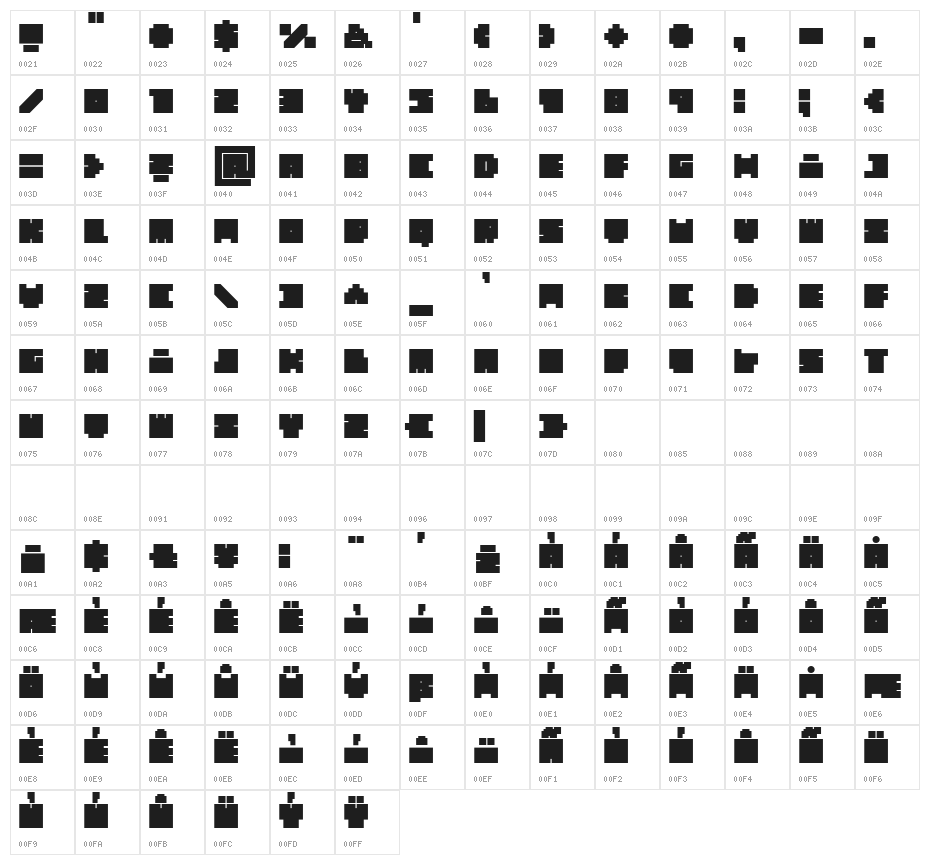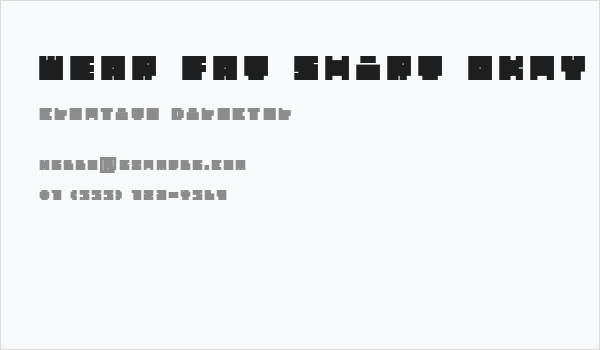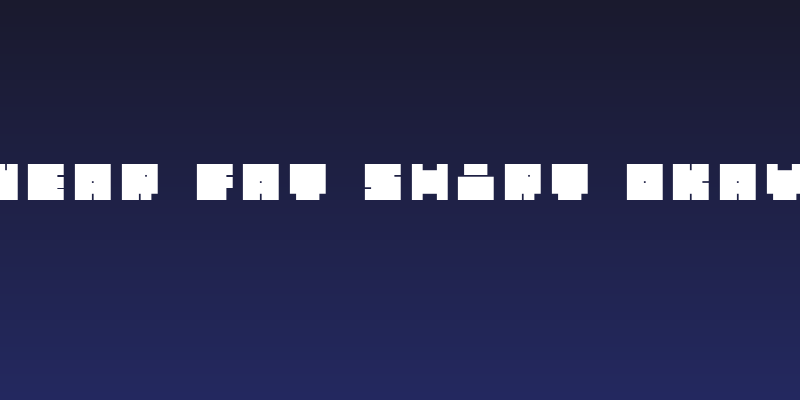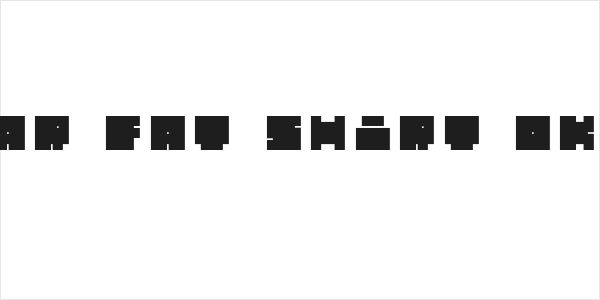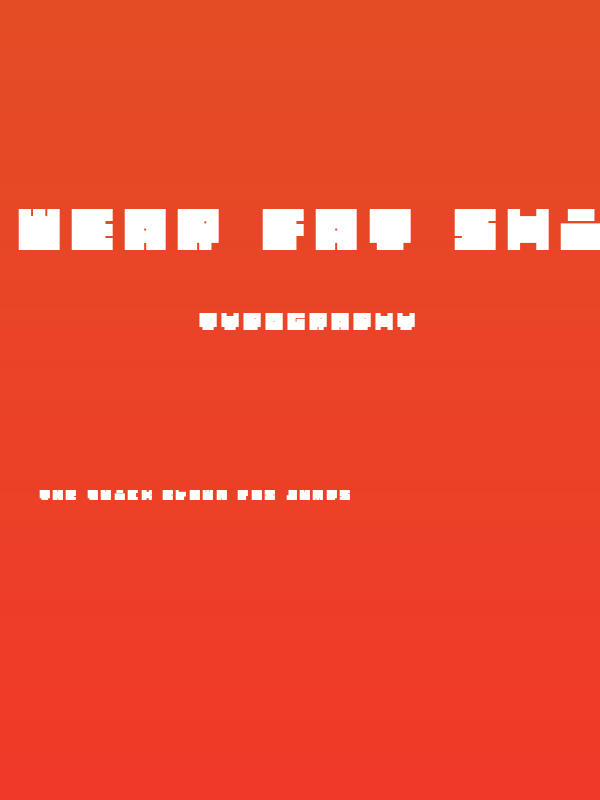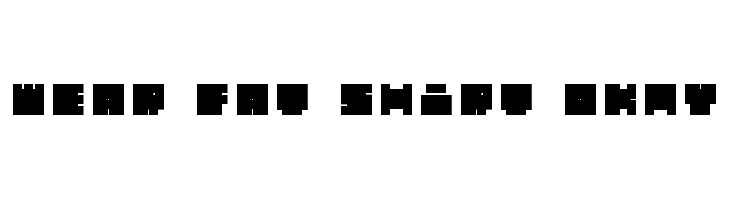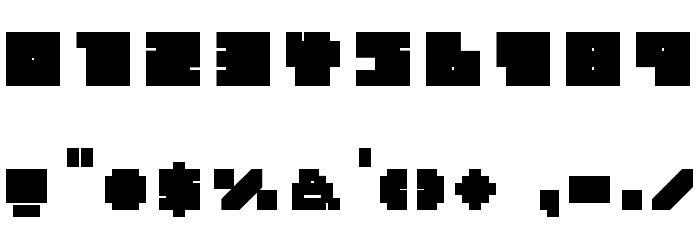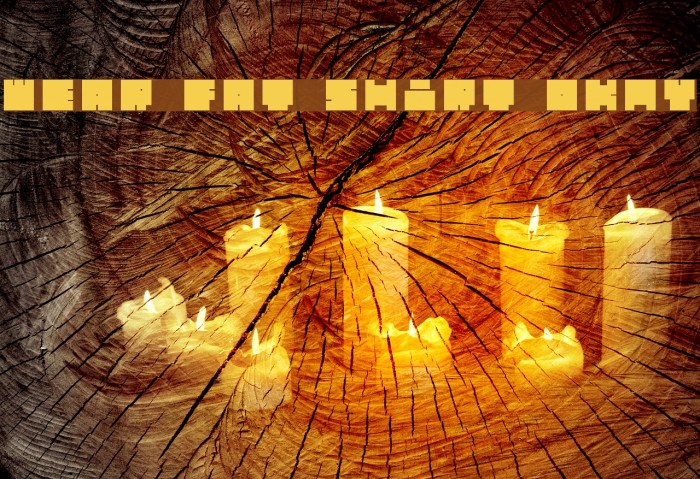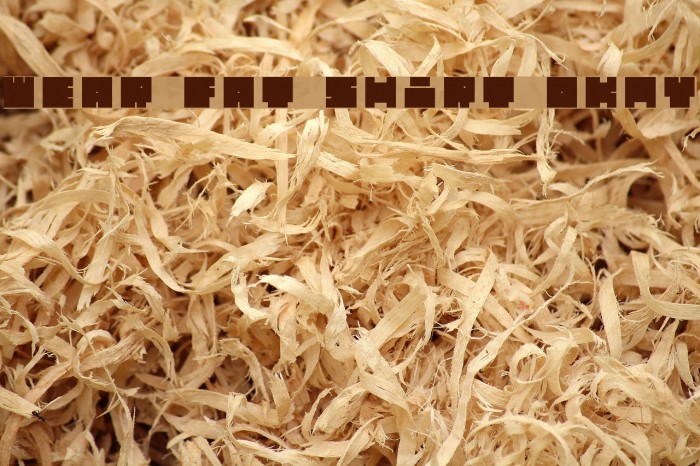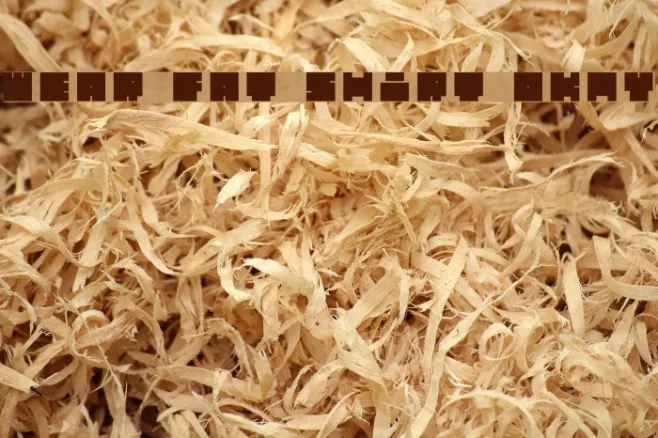
WEAR FAT SHIRT Okay Font
WEAR FAT SHIRT Okay Description
This font features a bold, blocky design with a distinctly geometric and angular appearance. The characters are uniformly wide, creating a strong and impactful visual presence. Each letter is crafted with sharp edges and a consistent thickness, contributing to a cohesive and modern aesthetic. The uppercase and lowercase letters maintain a similar style, ensuring readability while retaining a unique flair. Numbers and special characters are designed to match the boldness of the alphabet, making them suitable for various applications. The font's overall style is striking and contemporary, ideal for projects that require a strong visual statement.
| Proposed Projects | Ideal for branding, posters, headlines, and any design requiring a strong visual impact. |